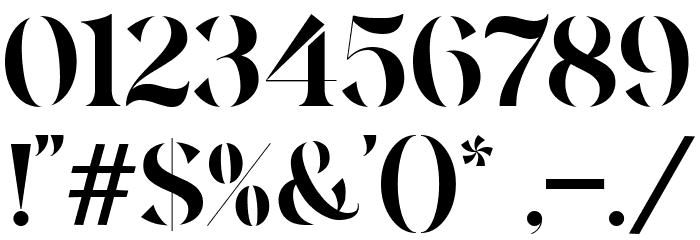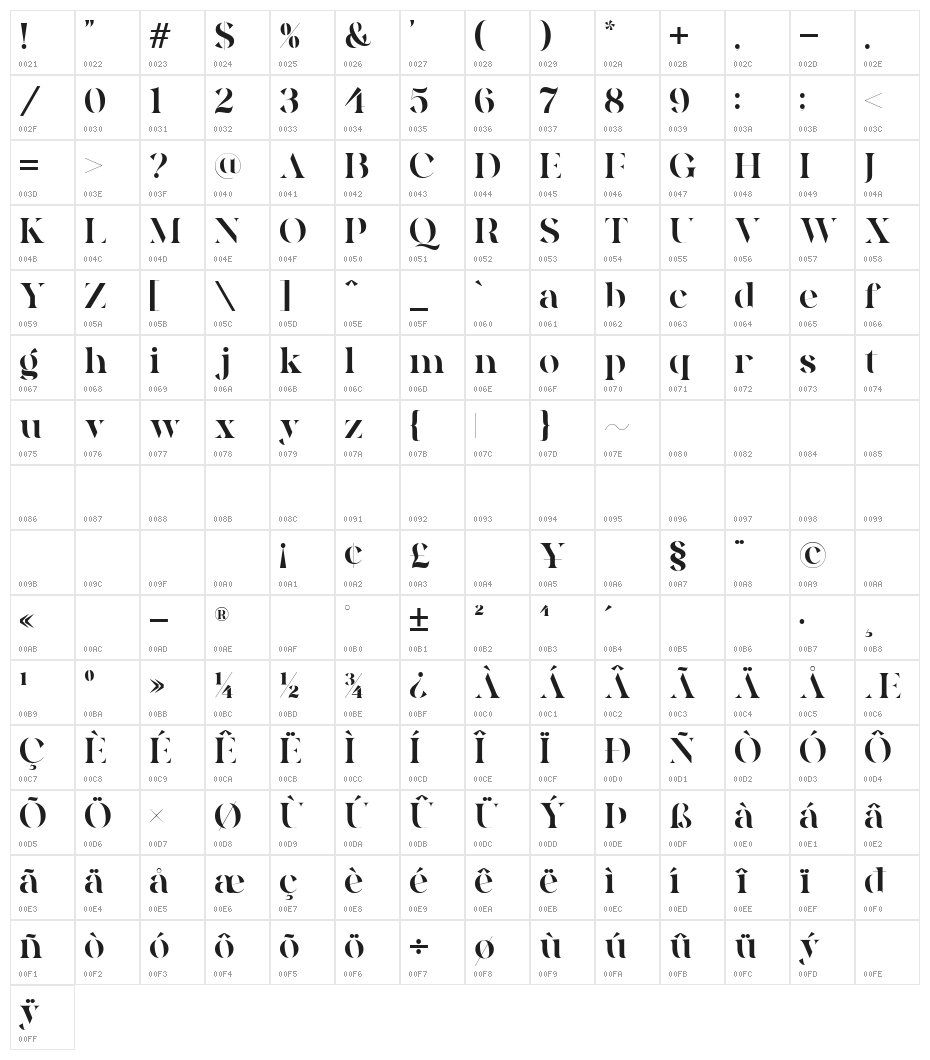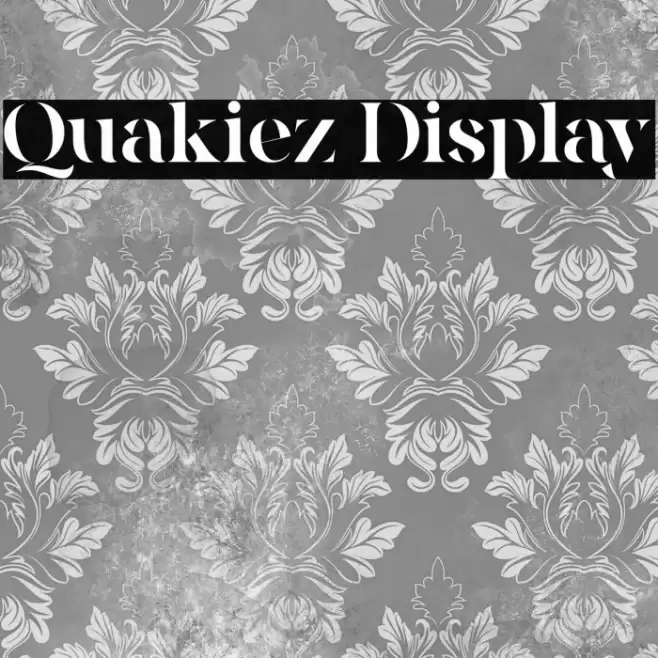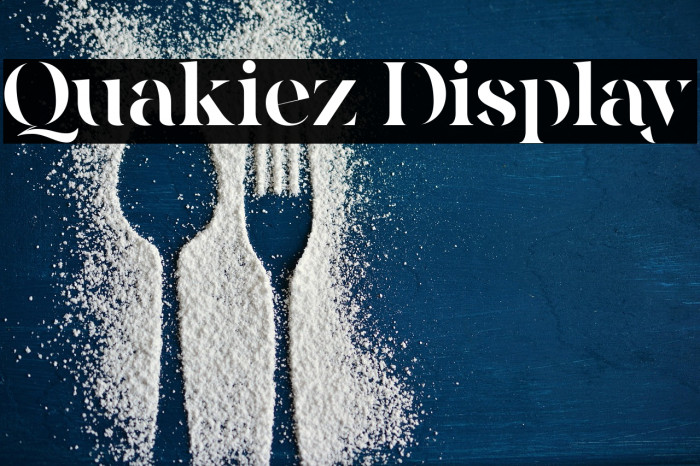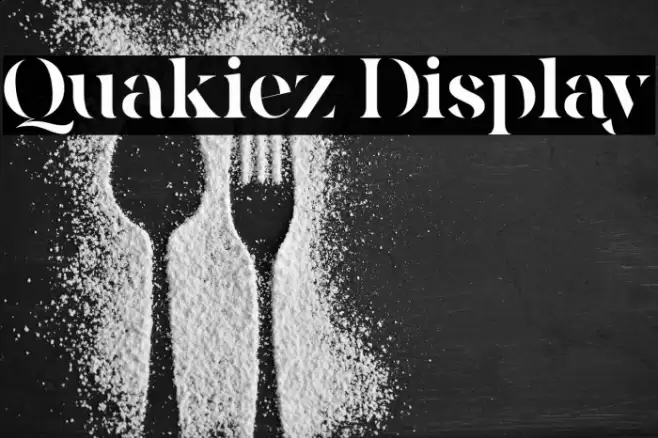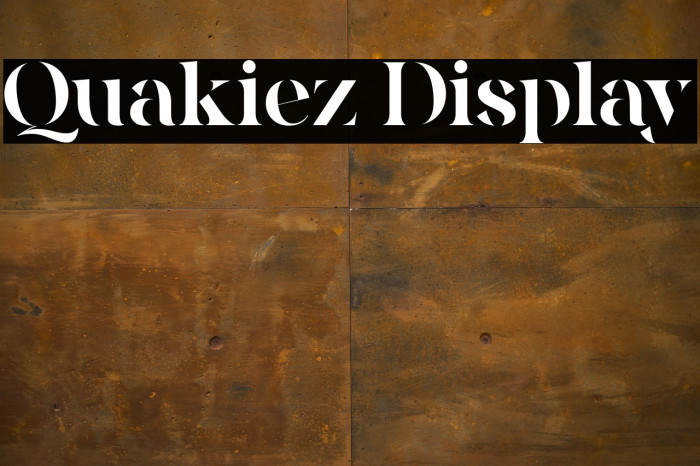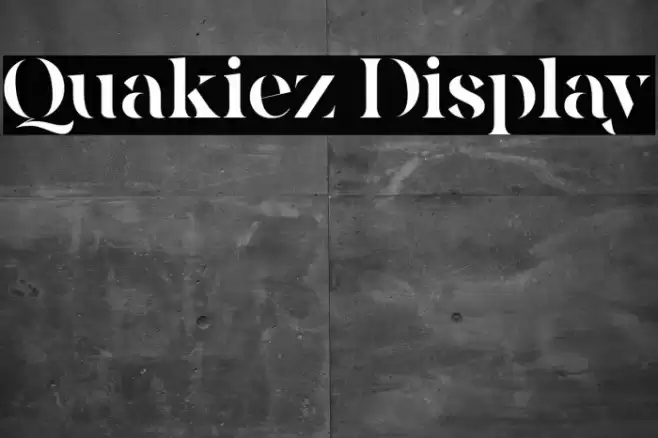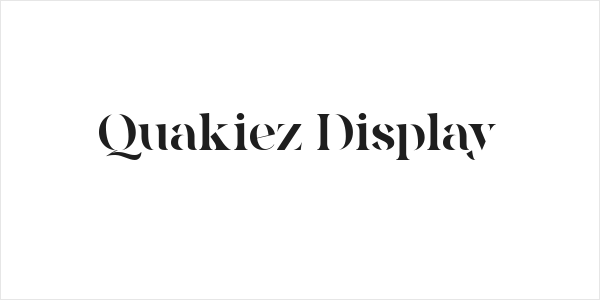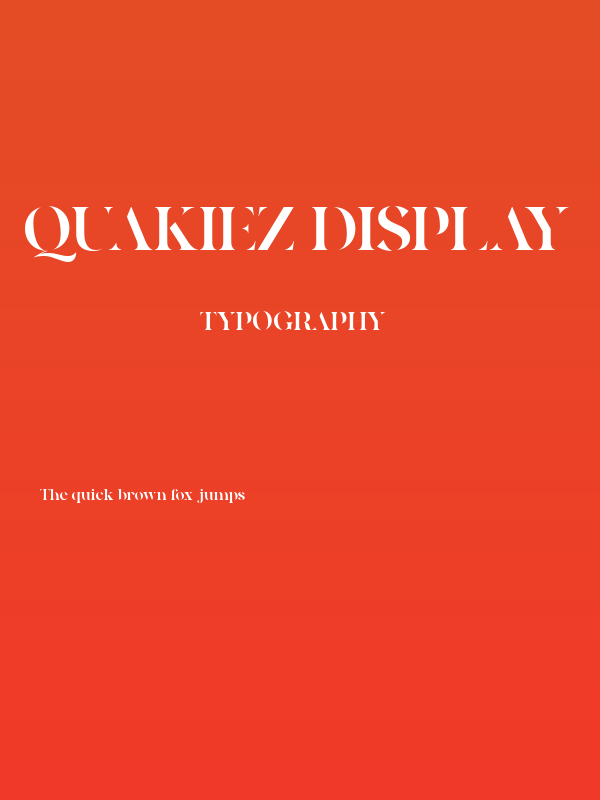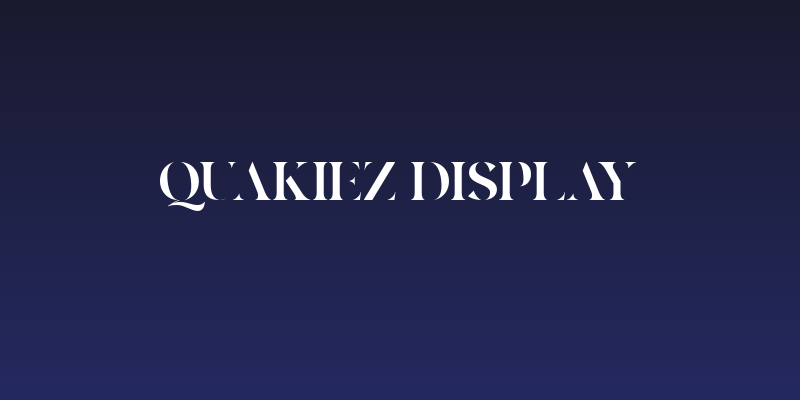
Quakiez Display Font
Quakiez Display Description
This font features a bold and striking design with high contrast between thick and thin strokes, creating a dramatic and eye-catching appearance. The characters are sharply cut with angular serifs, giving it a modern and edgy feel. The uppercase letters are particularly prominent, with a strong presence that commands attention. The lowercase letters maintain the same boldness, ensuring consistency throughout the text. Numbers and special characters are designed with the same attention to detail, making them stand out in any composition. This font is perfect for projects that require a strong visual impact and a contemporary aesthetic.